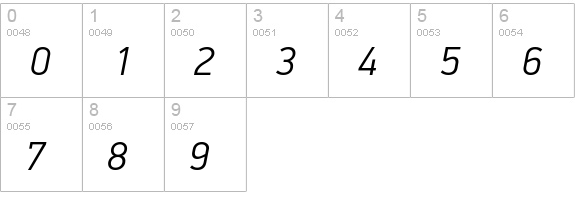
PFDinDisplayPro-LightItalic Font Details
PFDinDisplayPro-LightItalic is a sophisticated and elegant font that exudes a sense of modernity and refinement. Its delicate italic style adds a touch of grace and sophistication to any design project. Whether used for titles, headings, or body text, this font is sure to make a lasting impression. What makes PFDinDisplayPro-LightItalic even more appealing is that it is available for free download at FontsMarket.com. This means that you can access this high-quality font without any cost, making it a valuable addition to your font collection. Don't miss out on the opportunity to elevate your designs with the beauty and versatility of PFDinDisplayPro-LightItalic - download it now and let your creativity shine.